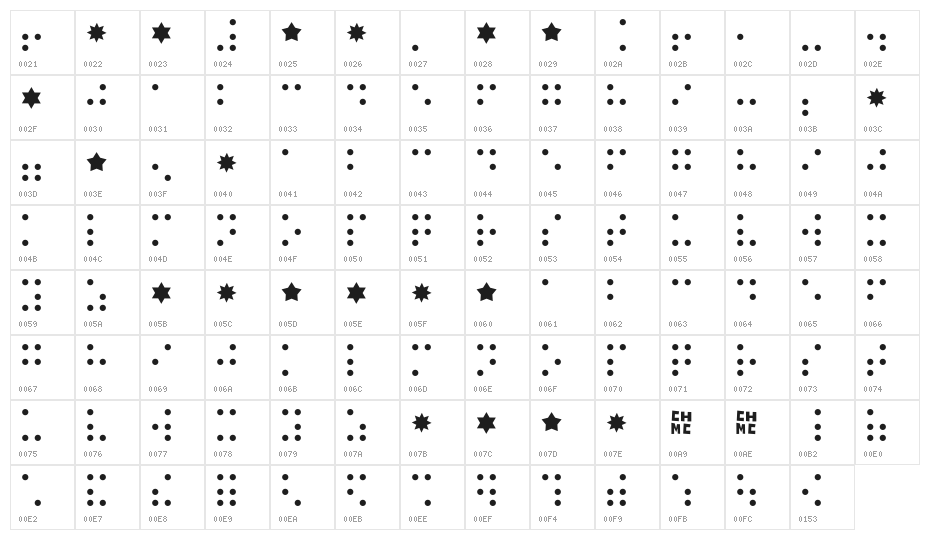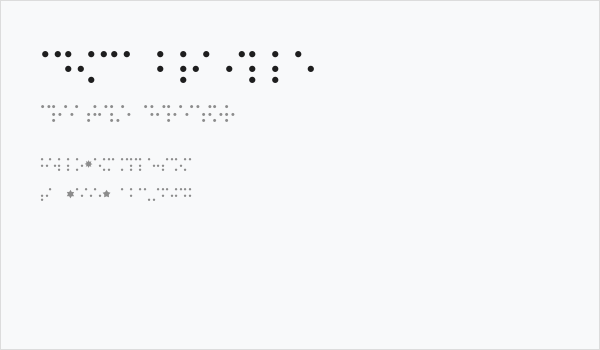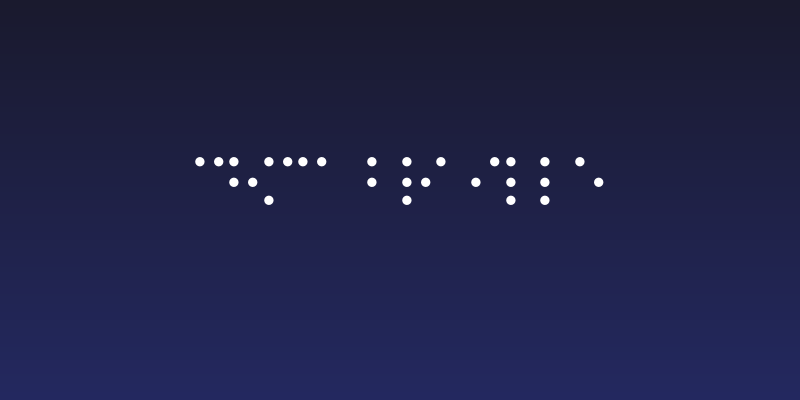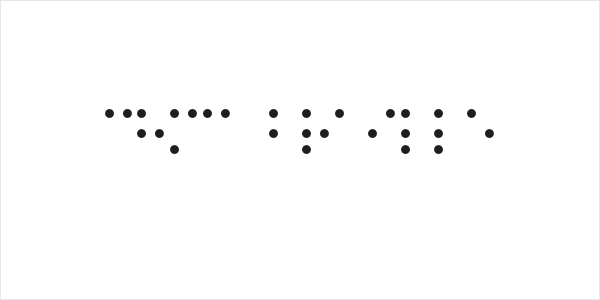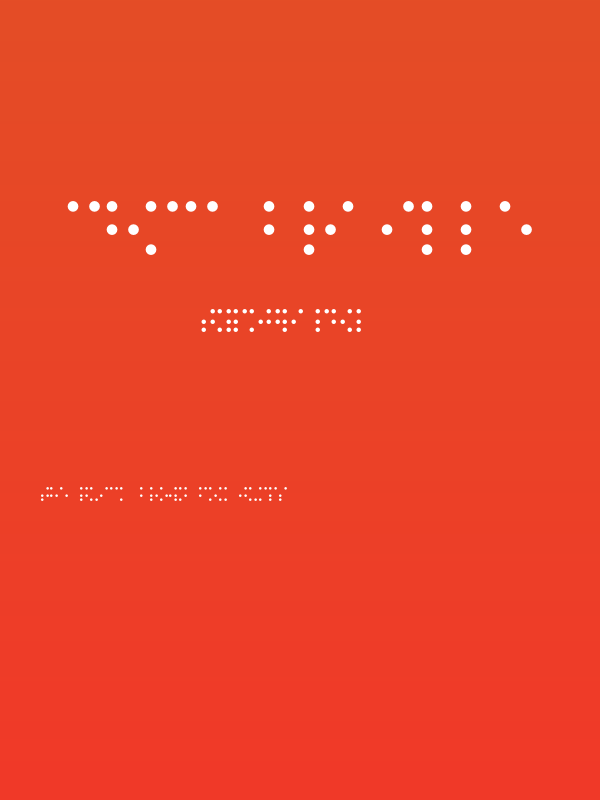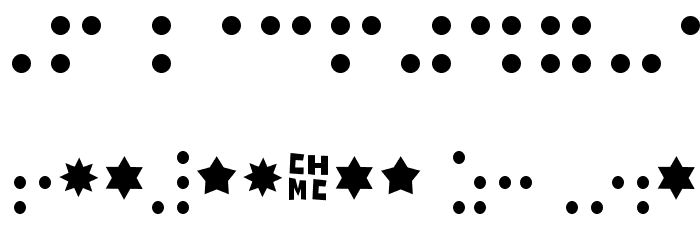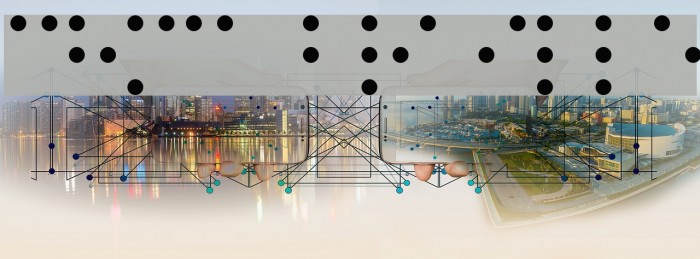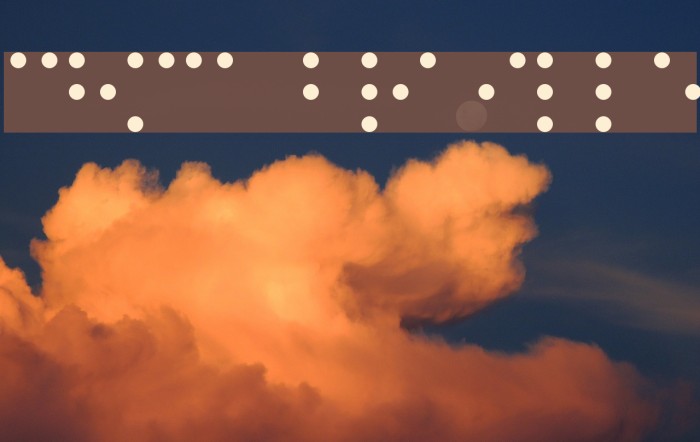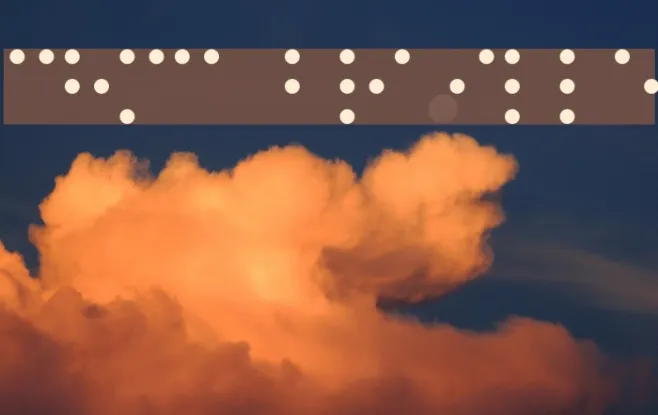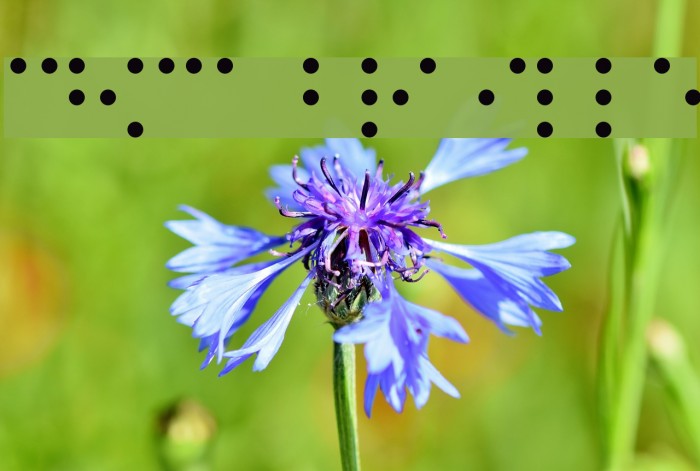
CHMC Braille Font
CHMC Braille Description
This is not a traditional font but rather a representation of Braille, a tactile writing system used by people who are visually impaired. It consists of patterns of raised dots that can be felt with the fingertips. Each character is made up of a cell containing up to six dots arranged in a 3x2 matrix. This system allows for the representation of letters, numbers, and punctuation marks, enabling effective communication and reading for those with visual impairments.
| Overall Style | Functional |
| Use Case | Accessibility, Education |
| Proposed Projects | Educational materials for the visually impaired, accessibility tools, tactile signage. |